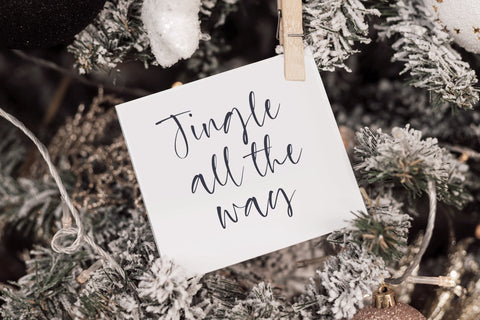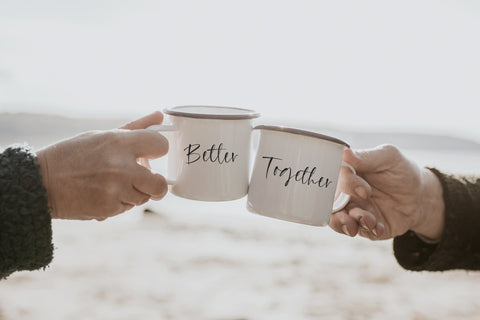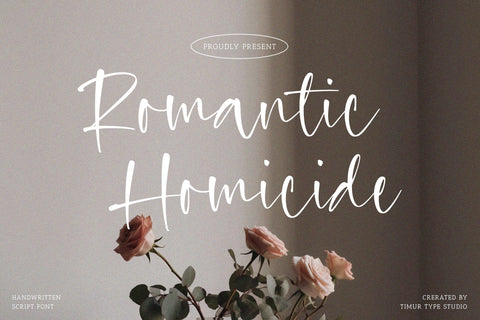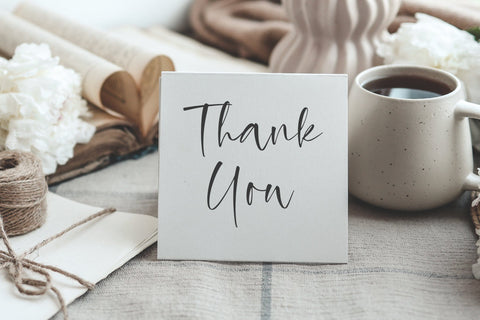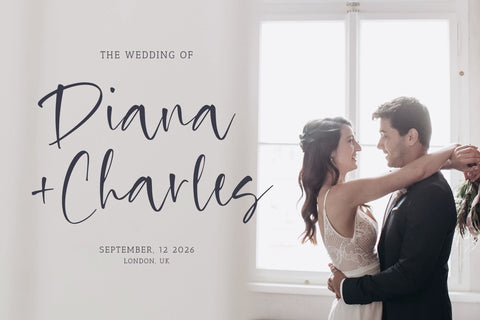
Romantic Homicide - Handwritten Script font
Proudly Present Romantic Homicide
Romantic Homicide Handwritten Script Font with a sharp tip at the end, a unique and distinctive typeface that adds a touch of edginess and personality to your designs.
Designed with meticulous attention to detail, this font captures the charm and authenticity of handwritten script while infusing it with a hint of sharpness and edge. The sharp tip adds a bold and dynamic element, lending a sense of energy and excitement to your typography.
Perfect for logo design, branding projects, social media graphics, and various print materials, this handwritten script font stands out with its unconventional style. Its sharp tip creates a playful contrast against the smooth and flowing strokes, evoking a sense of spontaneity and modernity.
Romantic Homicide font also multilingual support.